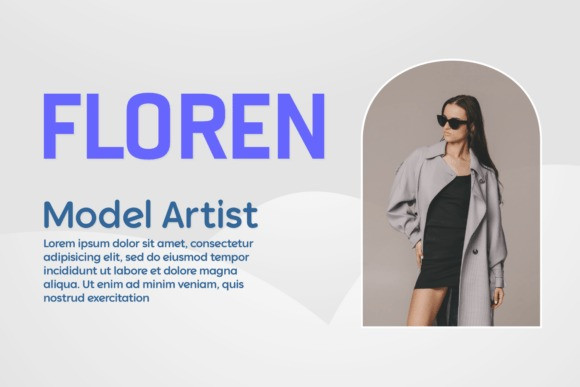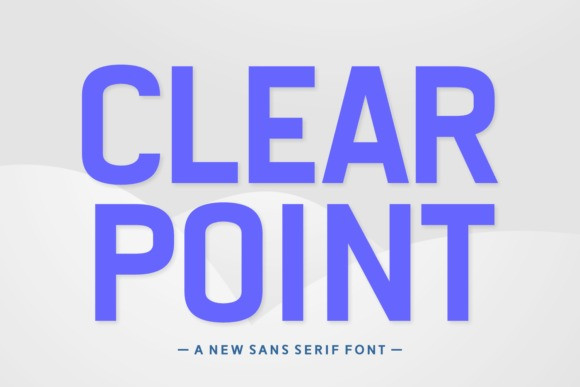
Clear Point Font
Clear Point Font is a bold and modern sans serif font designed with precision and clarity in mind. Its strong geometric structure and clean letterforms make it perfect for impactful headlines, branding, posters, and digital media. Clear Point balances readability with a contemporary edge, making it versatile for both professional and creative design projects.